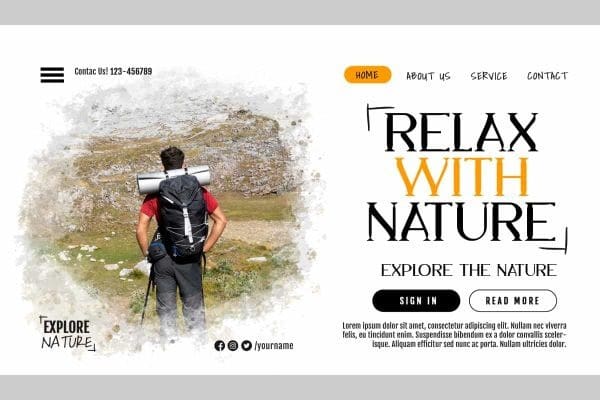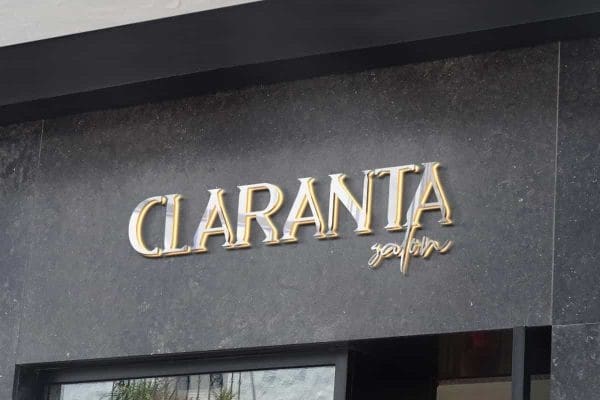
Happy Delphia Font
Happy Delphia Font is unique unusual serif display font with playful style. This font has a unique shape and can stand out in your design when combined with other types of fonts. It will work good in many designs, such as brand image, custom design, invitation, label, menu, poster, product packaging, quote, signage, stationery, web, and more!
Happy Delphia Font includes a full set of ALL CAPS for Uppercase and Lowercase Letters, Numerals, and large range of Punctuation. This luxury font will be suitable for various industries, such as advertising, beauty product, cafe, event or wedding organizer, fashion, florist, photography, printing, publishing, restaurant, spa and salon, etc.